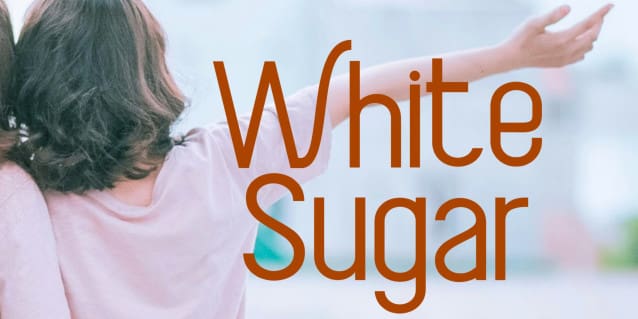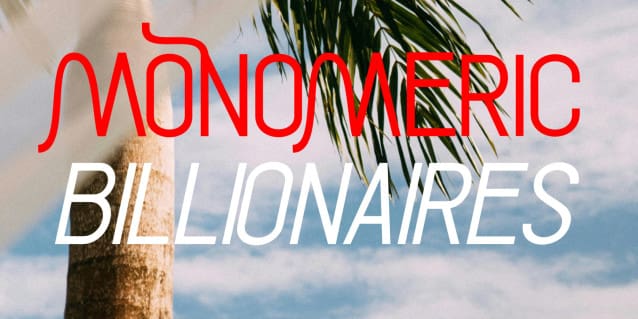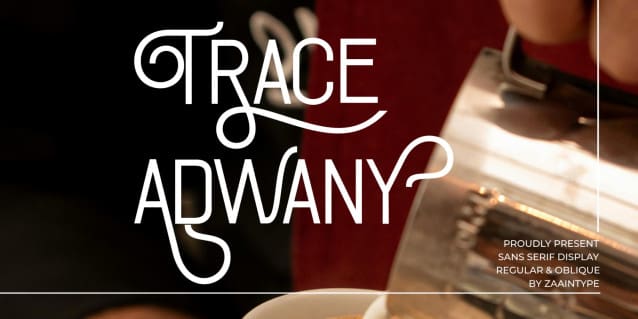
Trace Adwany Font
Trace Adwany is a bold and distinctive monoland font designed to make a statement. With its clean, structured lines and two versatile styles—Regular and Oblique—this typeface blends modern precision with timeless elegance.
Perfect for branding, headlines, posters, and editorial design